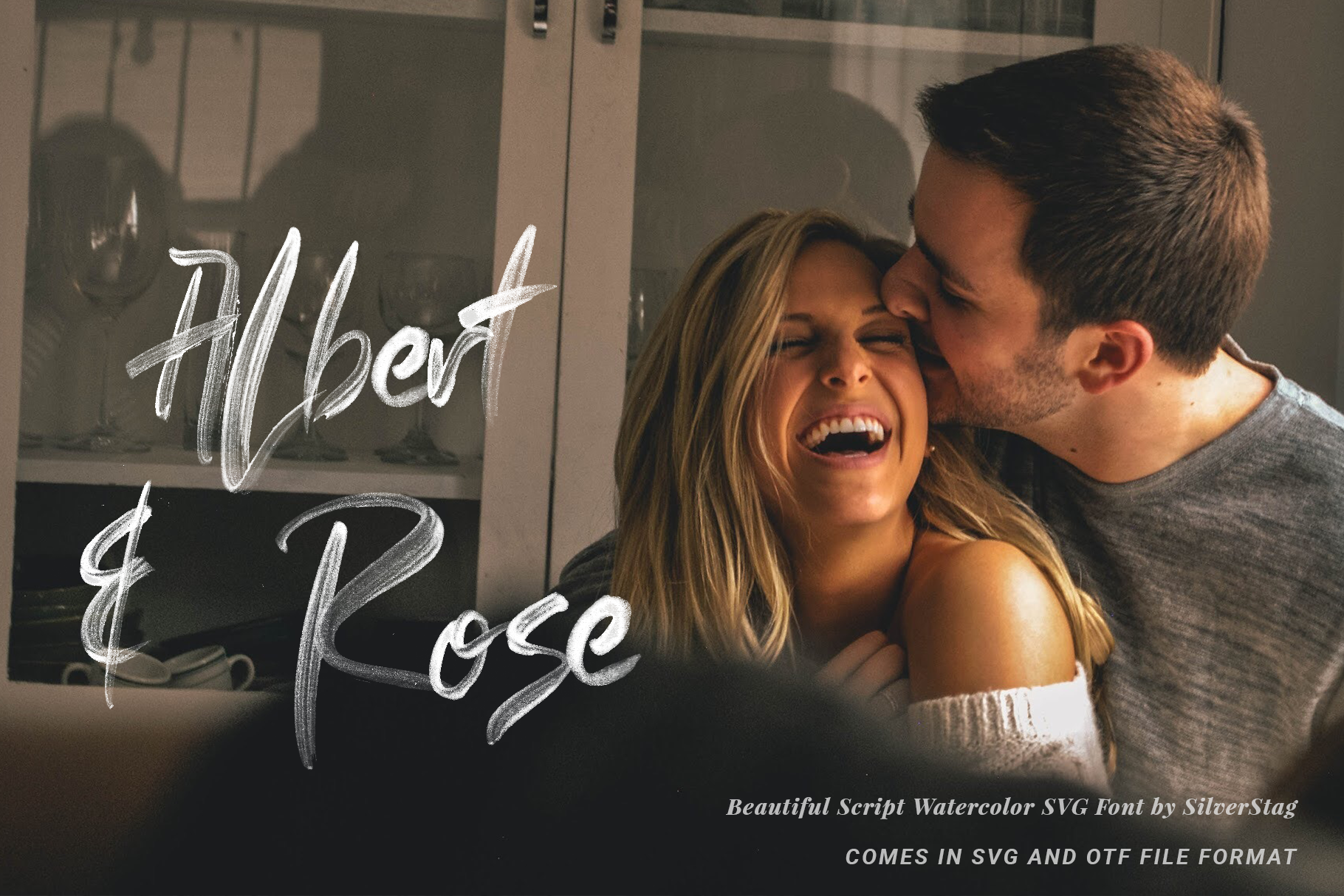
Loving Rose is a romantic hand-drawn SVG watercolor font designed to bring expressive charm and artistic texture to your creative projects. With three stunning font styles included, this typeface delivers true watercolor brush detail, making it ideal for logos, wedding invitations, editorials, and branding that needs a hand-painted look.
Whether you’re using advanced tools or keeping things simple, Loving Rose adapts beautifully—offering elegance, texture, and typographic flair in every project.